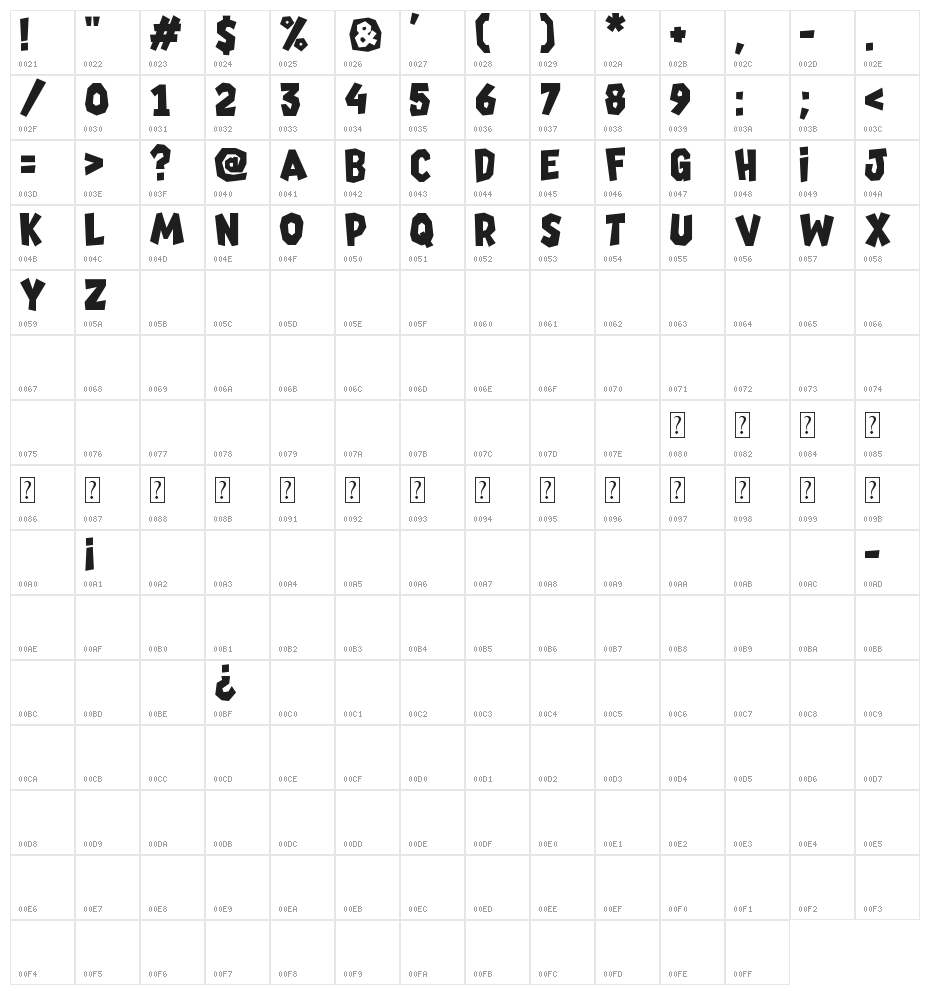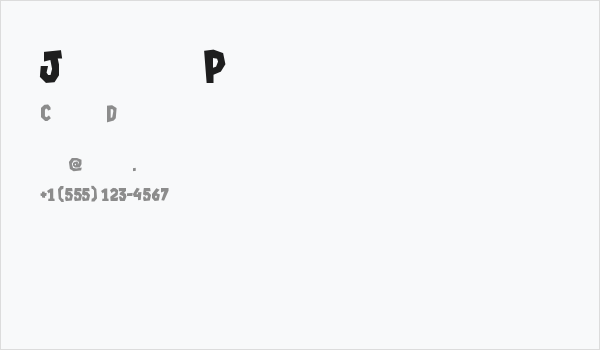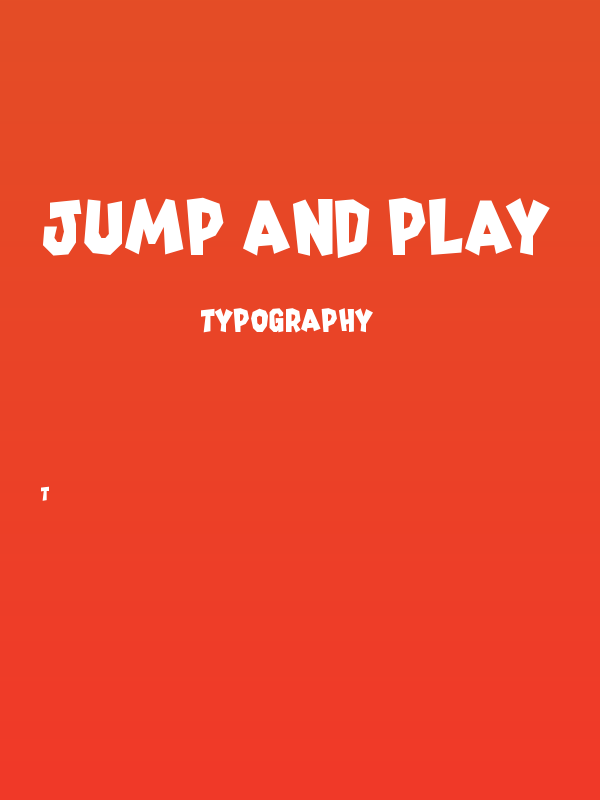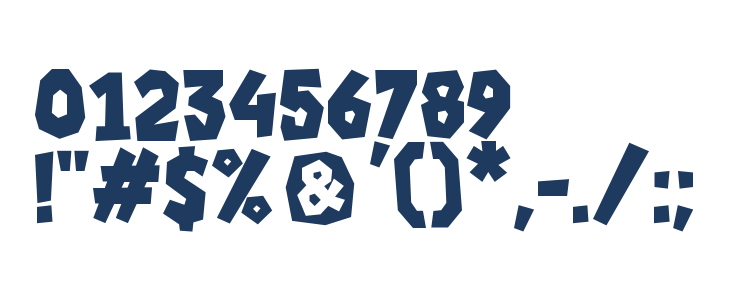
Jump and Play Font
Jump and Play Description
This font features a bold, playful style with a distinct geometric and angular design. The characters are irregularly shaped, giving them a dynamic and energetic appearance. The uppercase letters are particularly striking, with sharp edges and varying widths that create a sense of movement. The numbers and special characters maintain this playful aesthetic, ensuring consistency across all glyphs. This font is ideal for projects that require a fun and lively touch, such as children's books, playful branding, or event posters. Its unique style makes it stand out, capturing attention with its bold and quirky design.
| Overall Style | Playful, Energetic |
| Proposed Projects | Children's books, playful branding, event posters. |